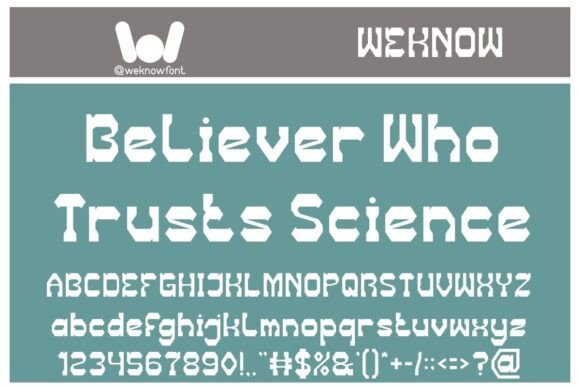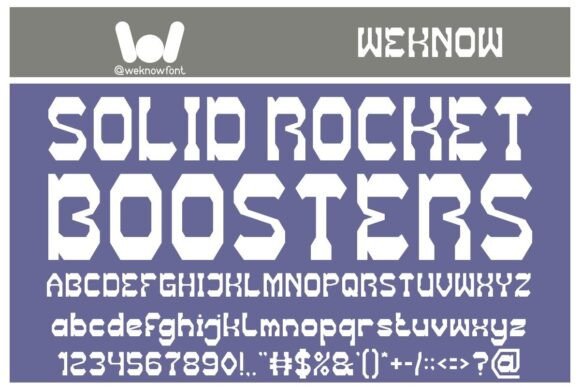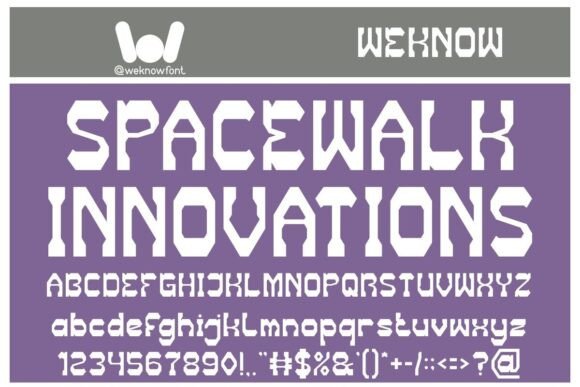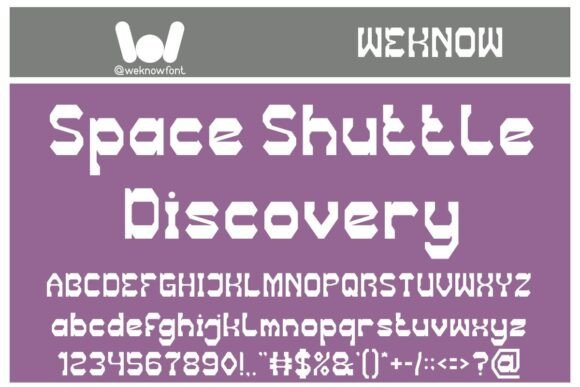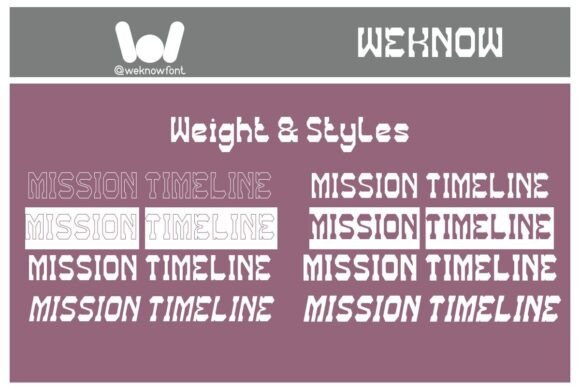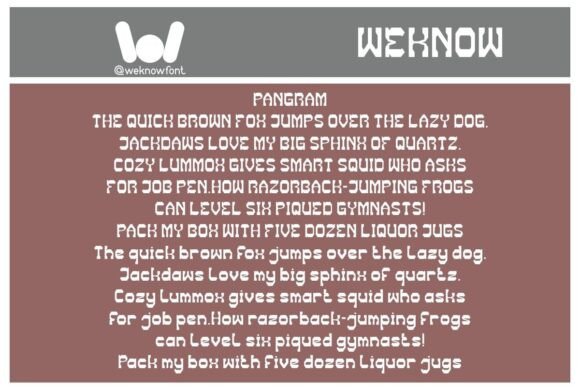
Introduction to Mission Timeline Font
Have you ever found yourself stuck in a creative rut, desperately searching for that one elusive font to elevate your project to the next level? I know I have. That’s why I’m thrilled to introduce you to the Mission Timeline Font, a game-changing design resource that’s about to revolutionize your creative process.
With its bold, geometric style and futuristic appeal, Mission Timeline Font is the perfect blend of retro charm and modern minimalism. This high-quality font is not just a pretty face; it’s a versatile design tool that can add a unique touch to any project, from fashion branding to sci-fi gaming. Whether you’re a seasoned designer or just starting out, Mission Timeline Font is a valuable addition to your design arsenal.
Key Features of Mission Timeline Font
- High-quality design resource perfect for creative projects, offering a professional and clean look.
- Unique characteristics include a modern and sleek design, ideal for use in presentations, infographics, and other visual content.
Honest Review: Mission Timeline Font
I recently had the chance to work with the Mission Timeline Font, and I must say it’s been a game-changer for my creative projects. As a designer, I’m always on the lookout for high-quality design resources that make my work stand out, and this font definitely delivers.
- ✨ Customizable: The Mission Timeline Font offers a range of customization options, making it easy to tailor the design to your specific needs.
- ✨ High-Quality: The font is crisp and clear, with a clean and modern aesthetic that’s perfect for a variety of design applications.
One of the standout features of the Mission Timeline Font is its transparent background, which makes it easy to layer over other design elements.
While the Mission Timeline Font is an excellent design resource, there are a few limitations to be aware of:
- ⚠️ Limited Character Set: The font only includes a limited character set, which may not be suitable for complex design projects.
- ⚠️ Not Suitable for Body Text: While the font is great for headings and titles, it may not be the best choice for body text due to its unique design.
Overall, I’m thoroughly impressed with the Mission Timeline Font, and I highly recommend it to any designer looking for a high-quality design resource. With its customizable options, transparent background, and free download, it’s an excellent addition to any toolkit.
Tips for Getting the Most Out of Mission Timeline Font
Use the font in combination with a bold color scheme to make your design stand out. Experiment with different font sizes and styles to create a visually appealing timeline or design element. The font’s transparent background makes it easy to customize and adjust to your design needs.
The Mission Timeline Font is perfect for creating timelines, infographics, and other visual aids for creative projects. Use it to design a project timeline, a presentation, or a document. The font’s high-quality design and transparent background make it a valuable design resource for any creative project.